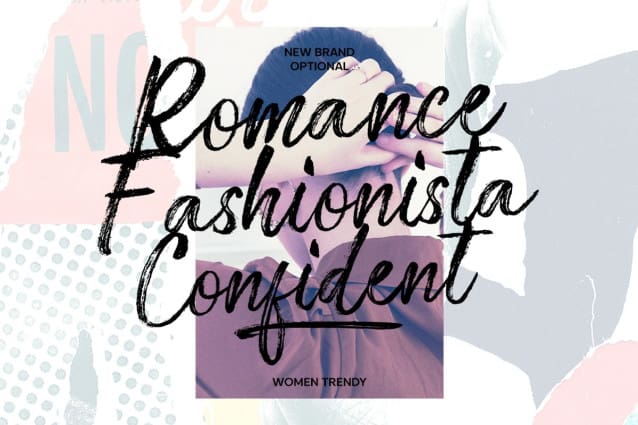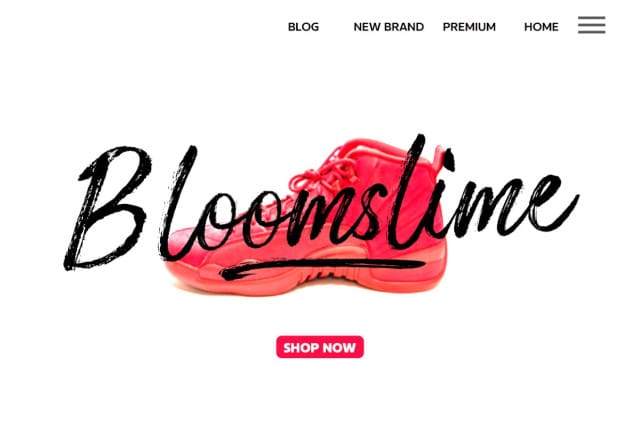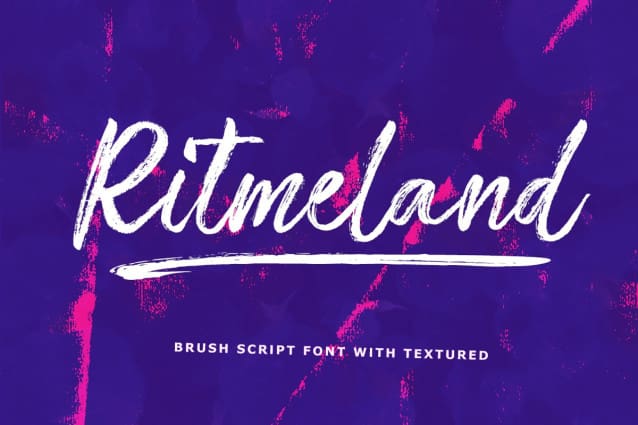
Ritmeland Brush Font
Ritmeland Brush Font is a brush with extreme cuts, sharp corners and interactive straps. Characters that seem solid are spread across each replacement letter, with different styles and maximum personality. Bold character separation and considered binding standards create a type that is sturdy, modern and attractive. Suitable for logos, emblems, magazines, quotes etc.